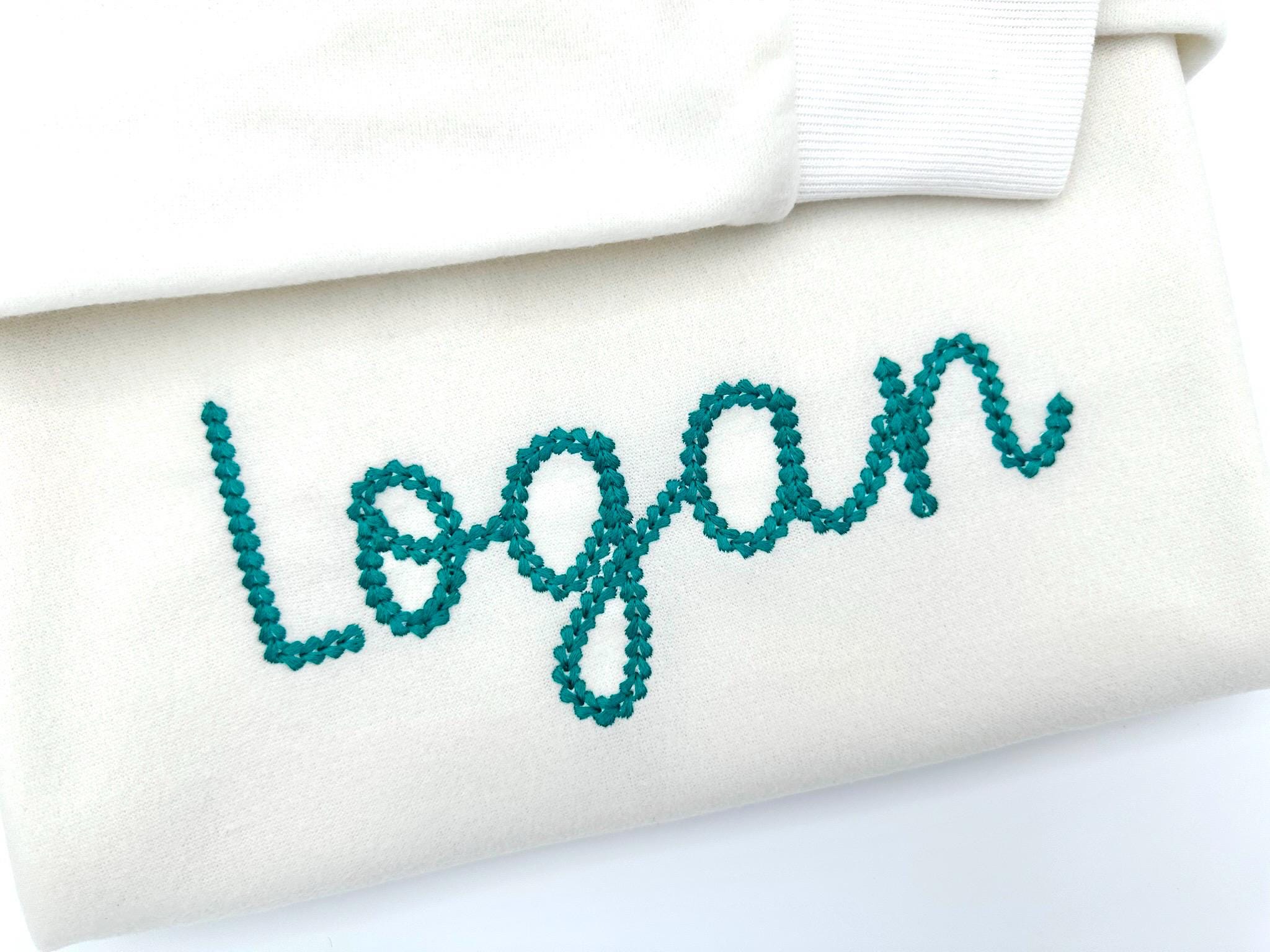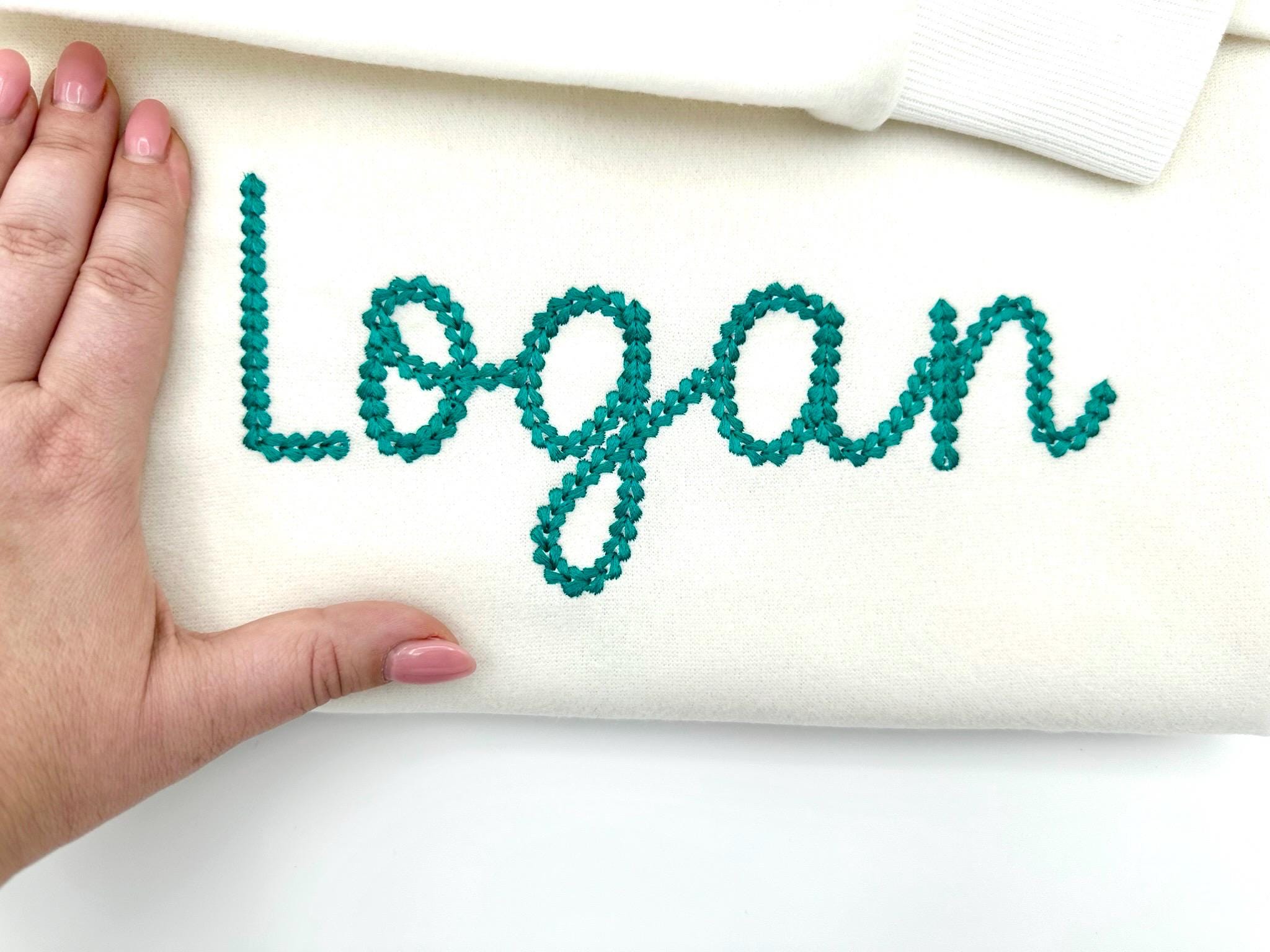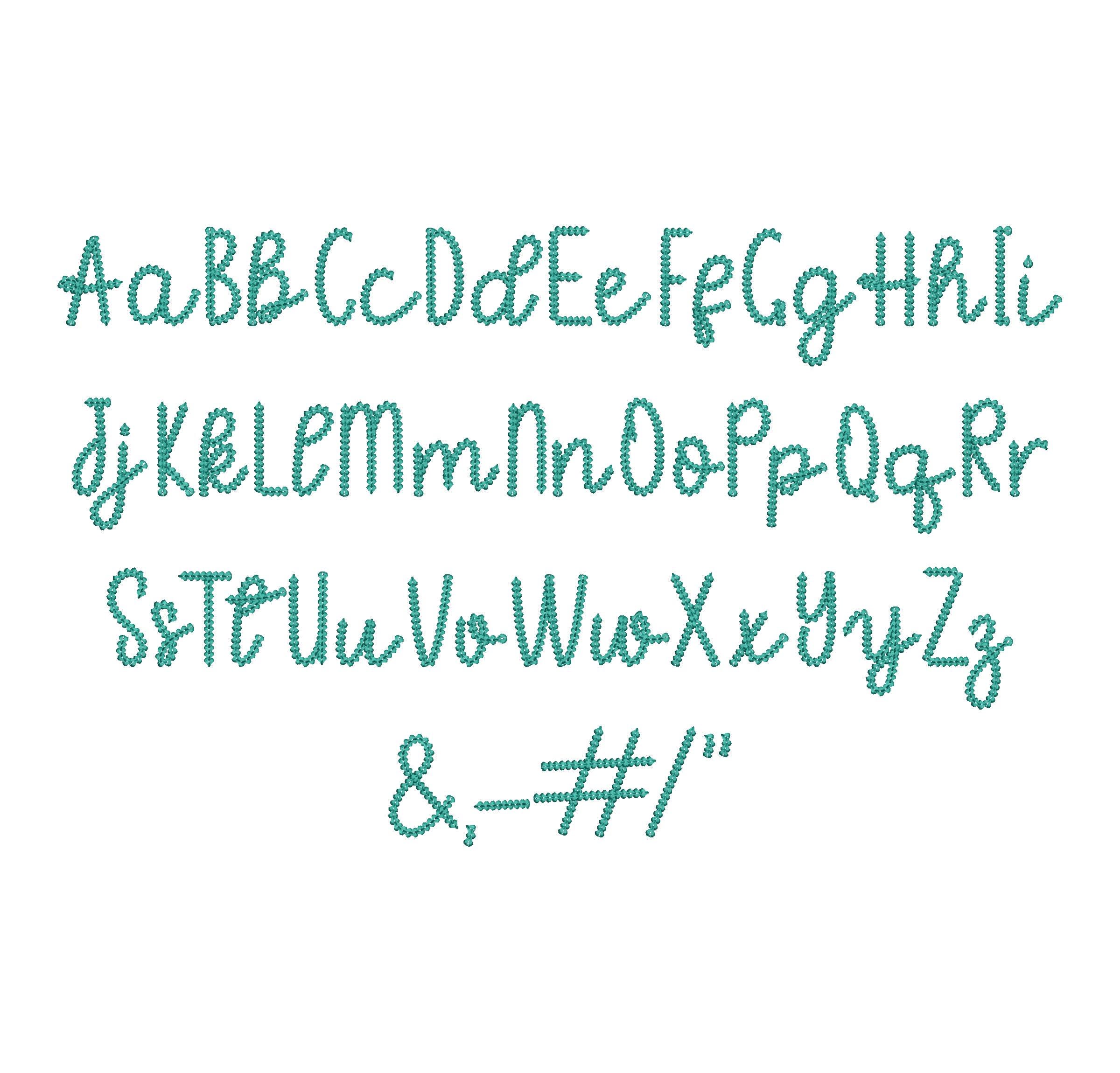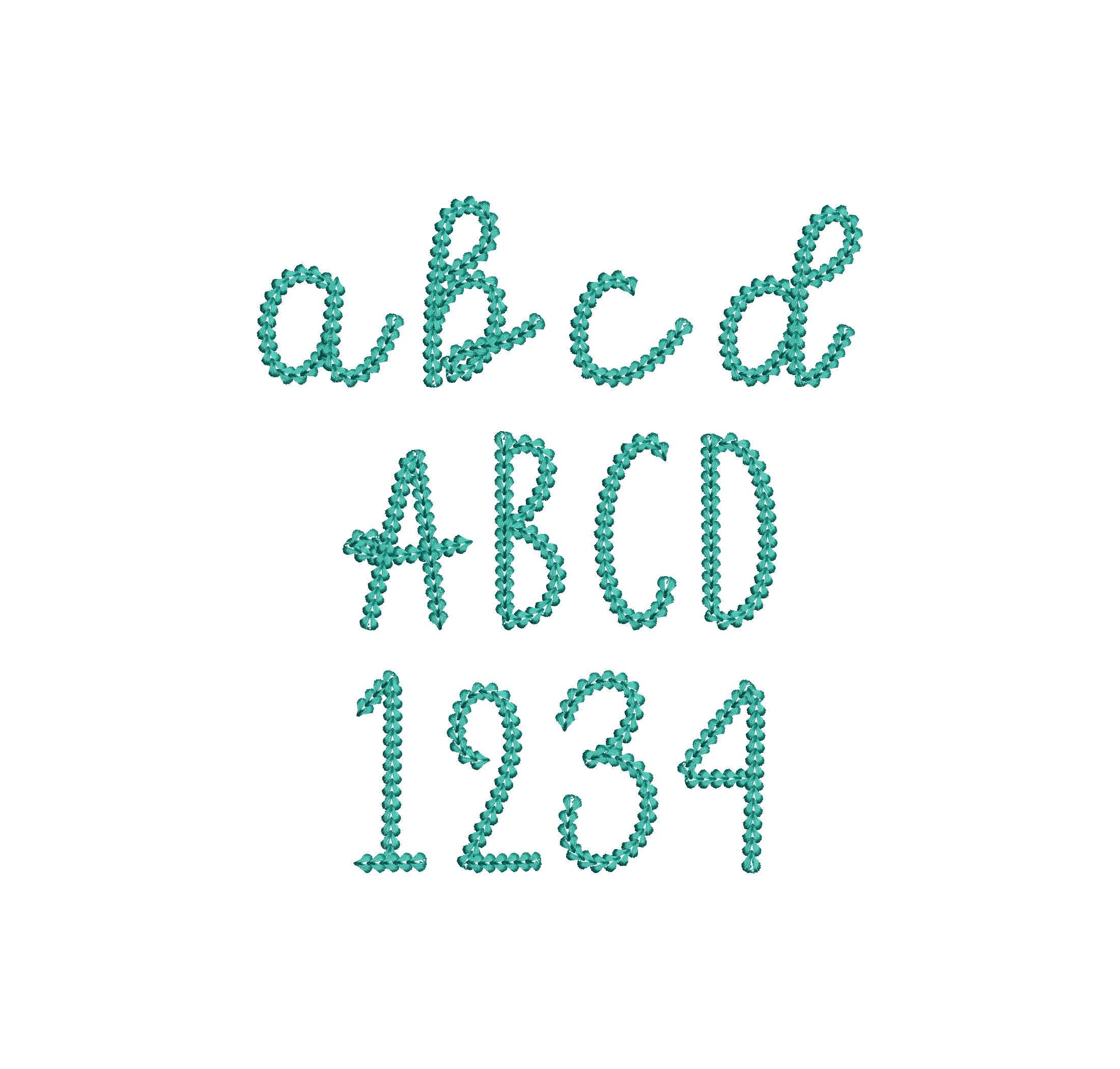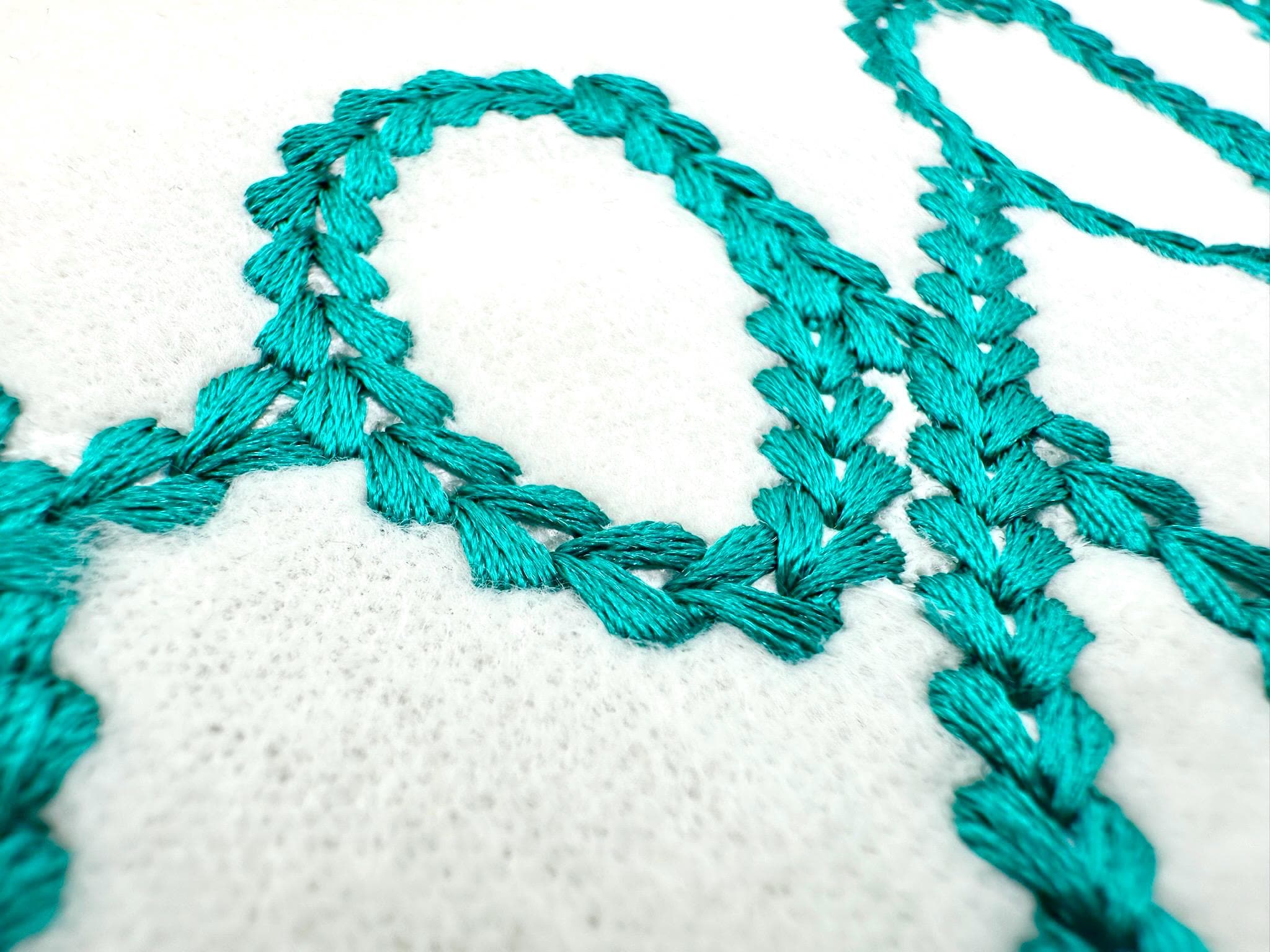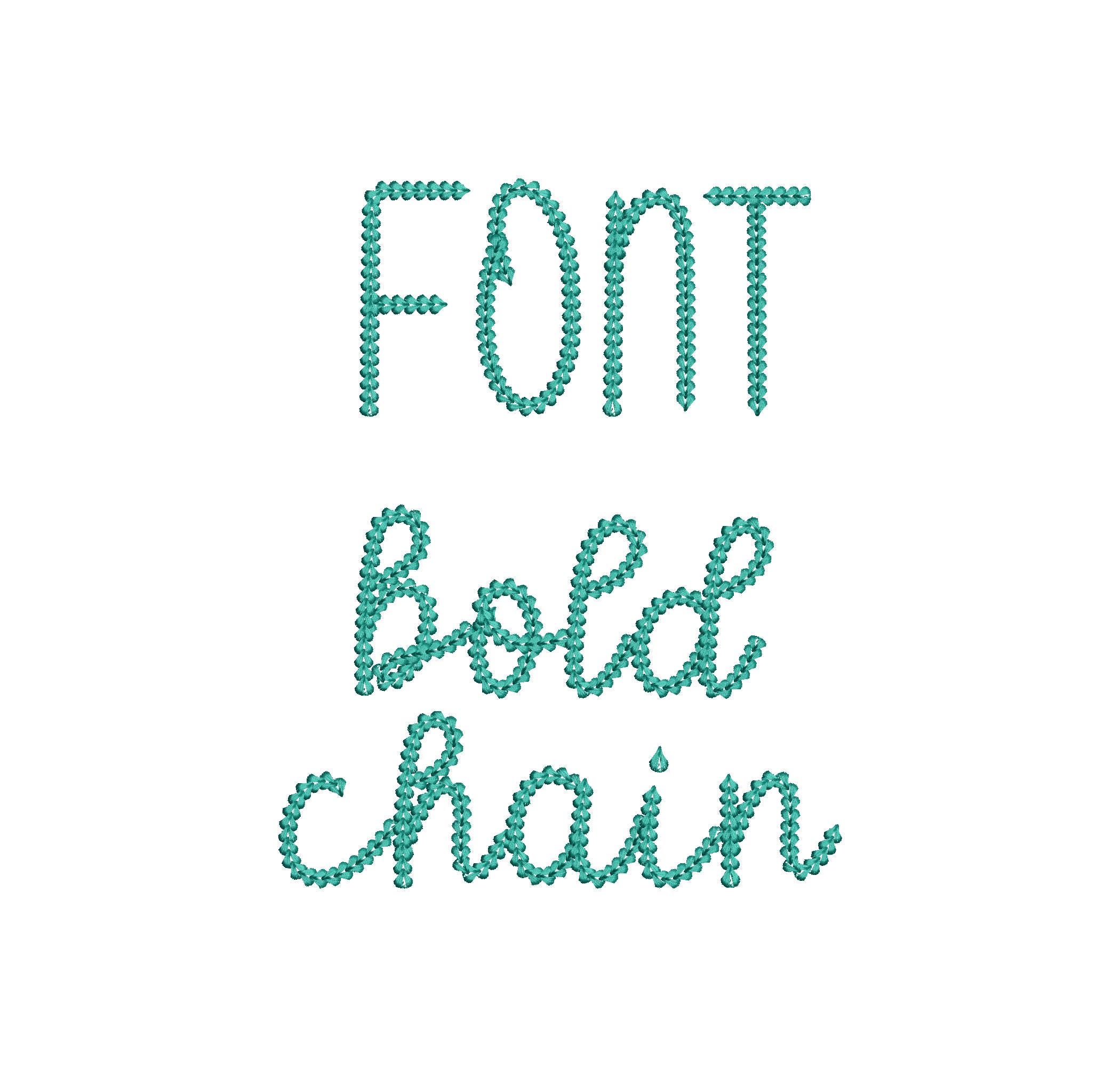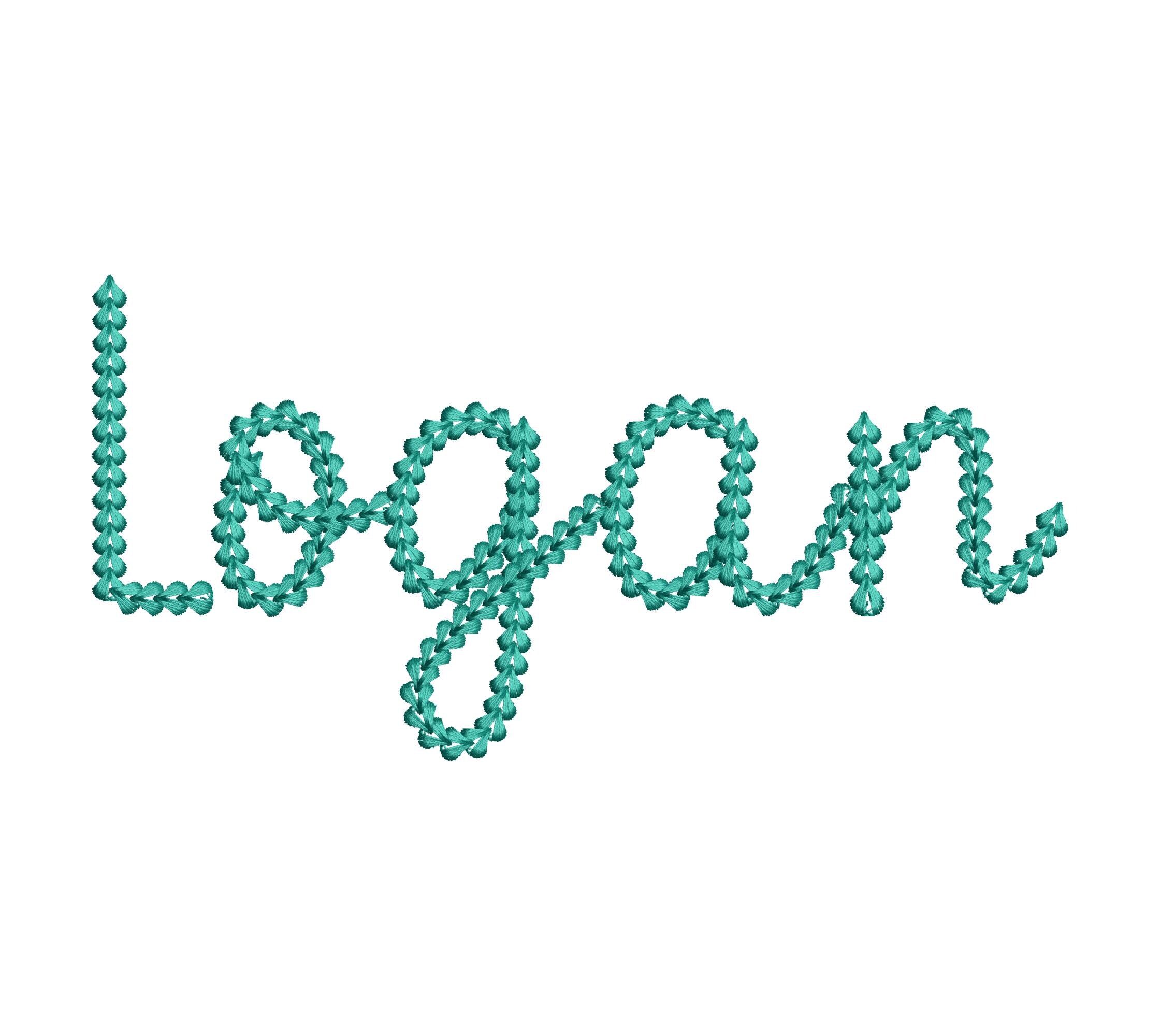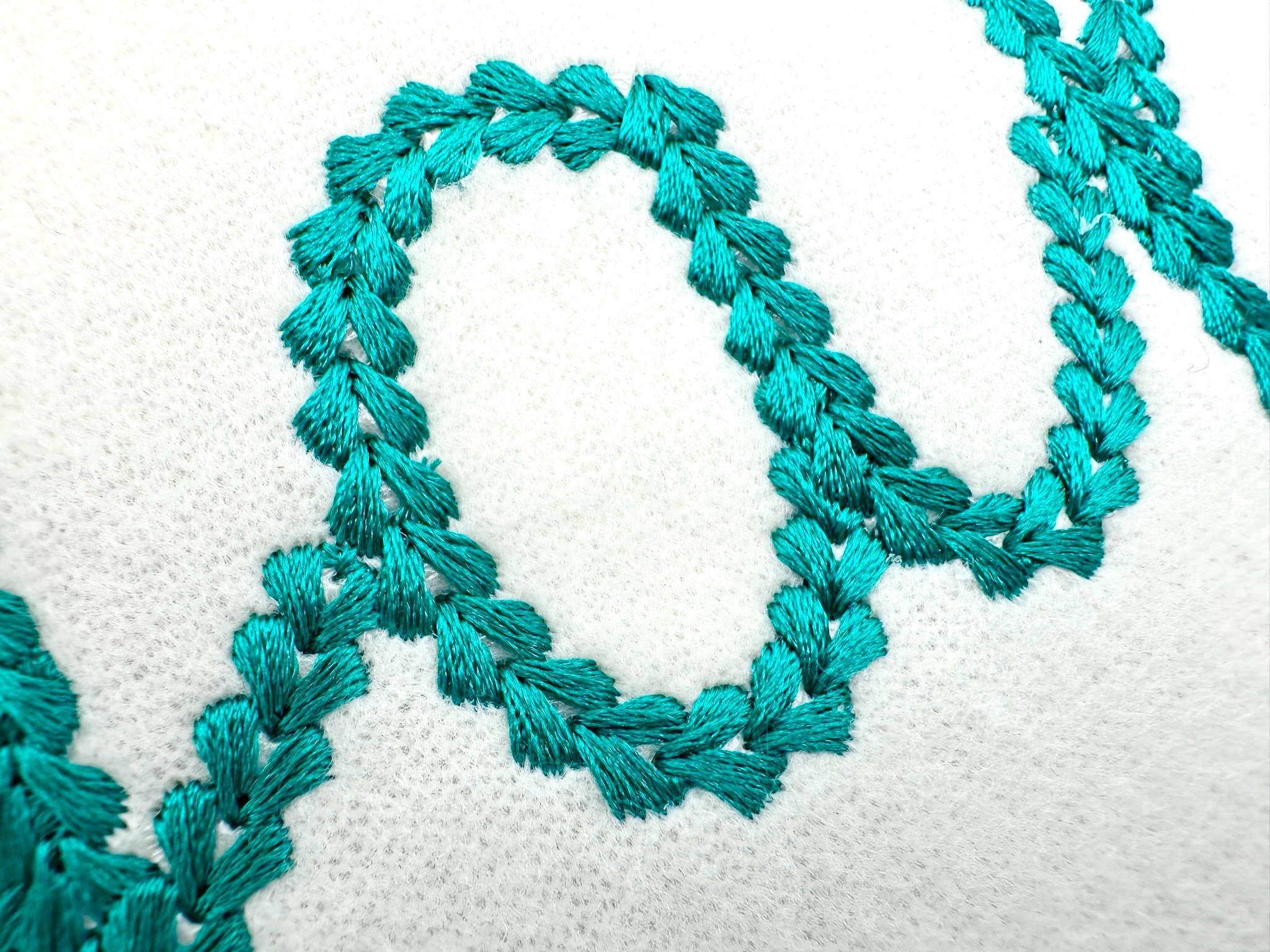
Extra Bold Chain stitch FONT Whisker handwritten alphabet machine embroidery designs monogram knit sweater effect sizes 2.4 up to 3.5 inch
Entire alphabet uppercase and lowercase letters, numbers, and punctuation.